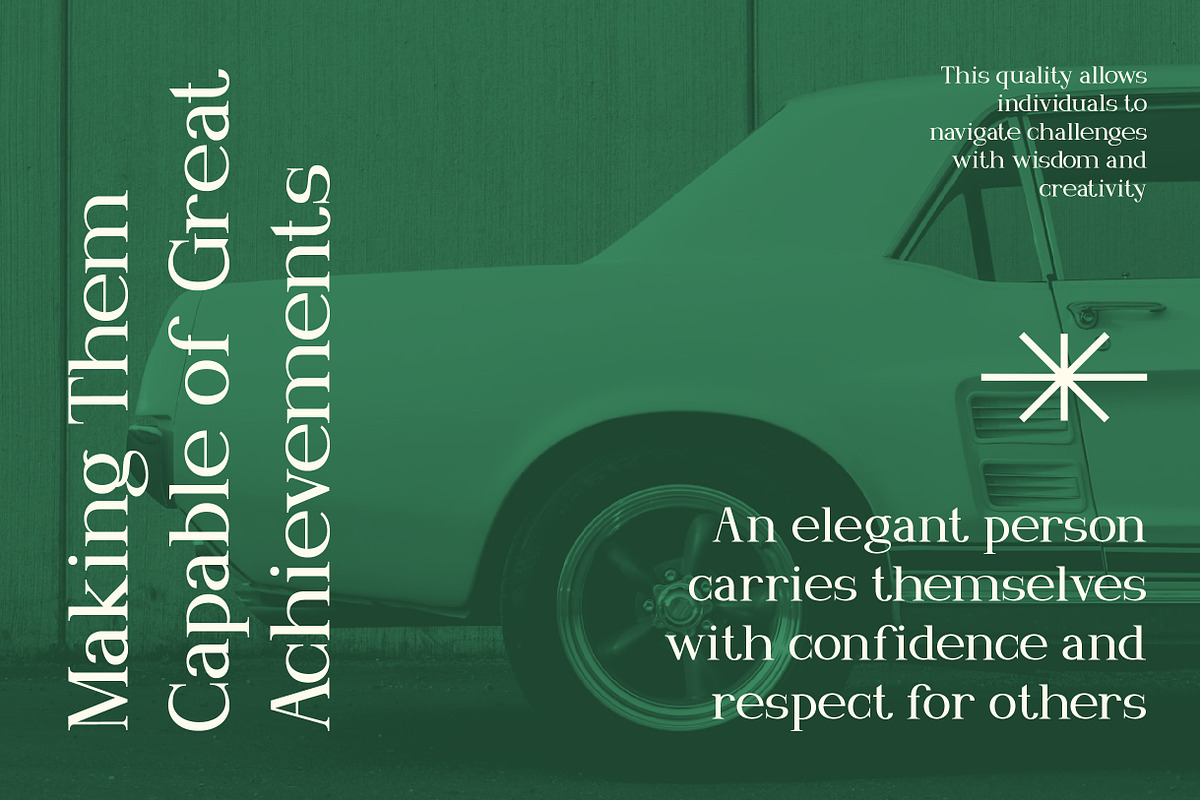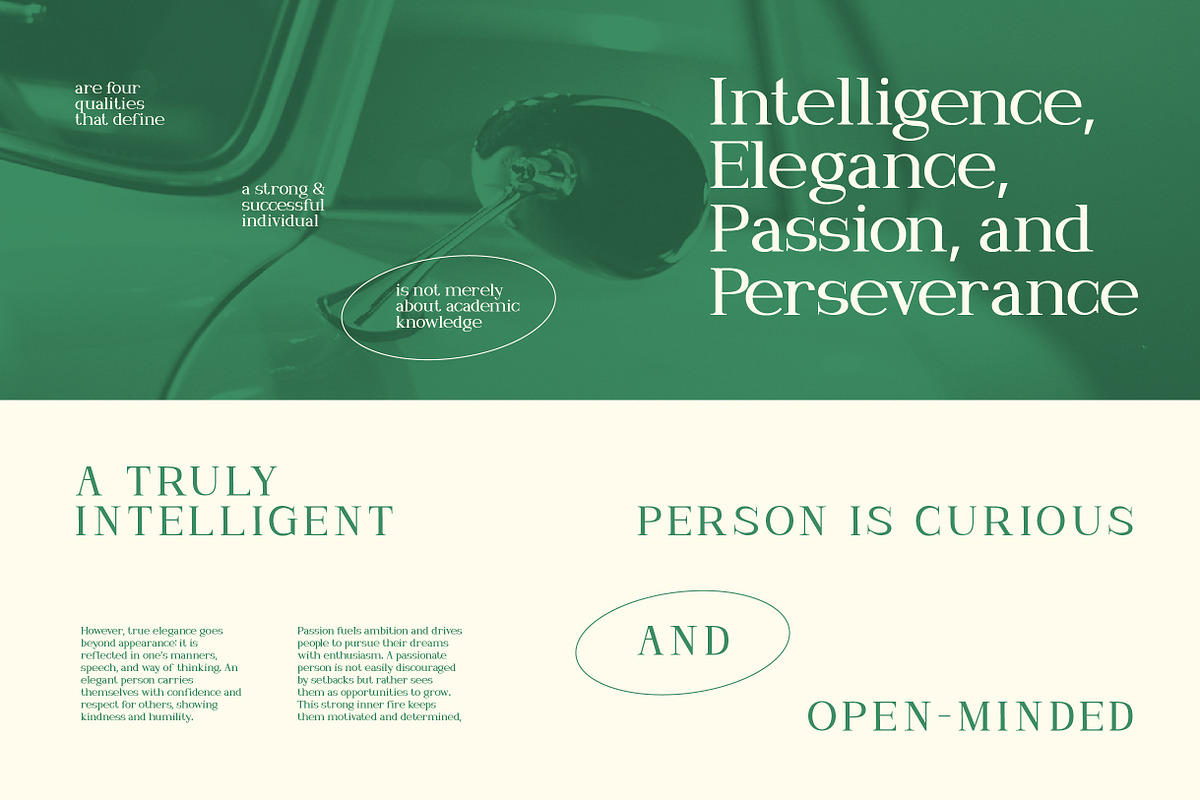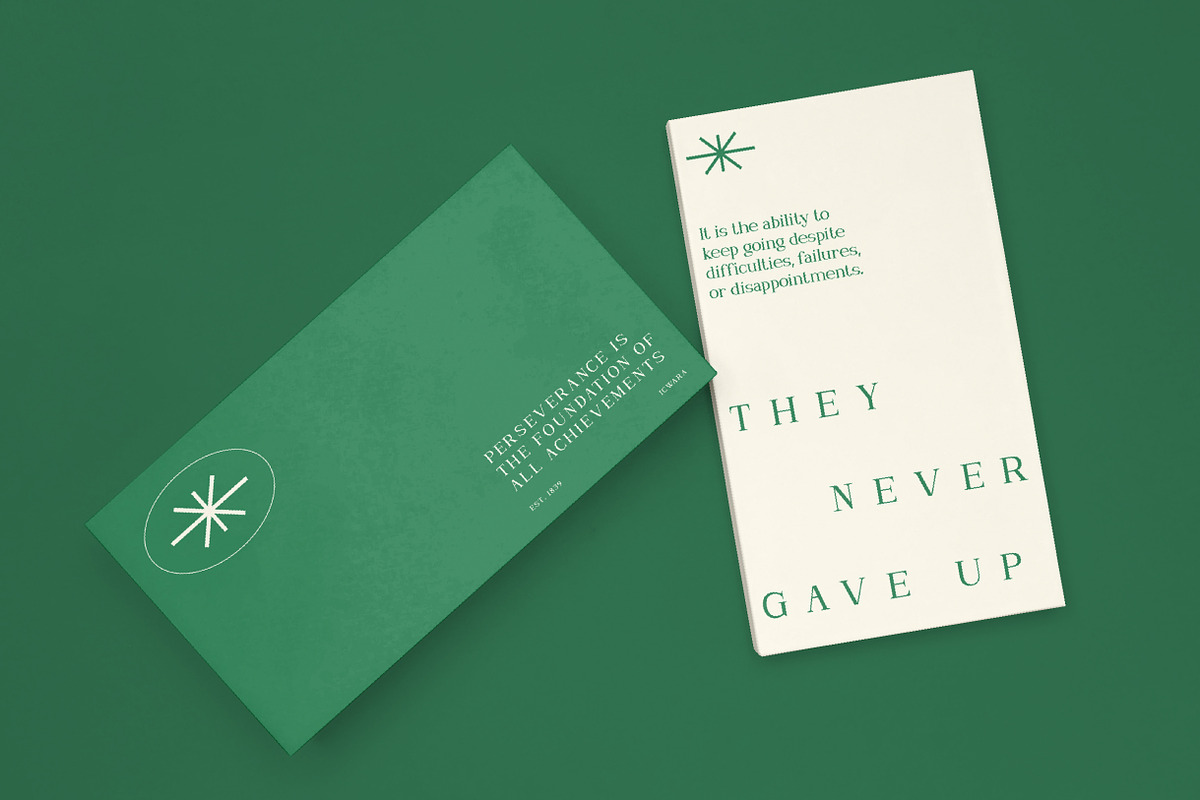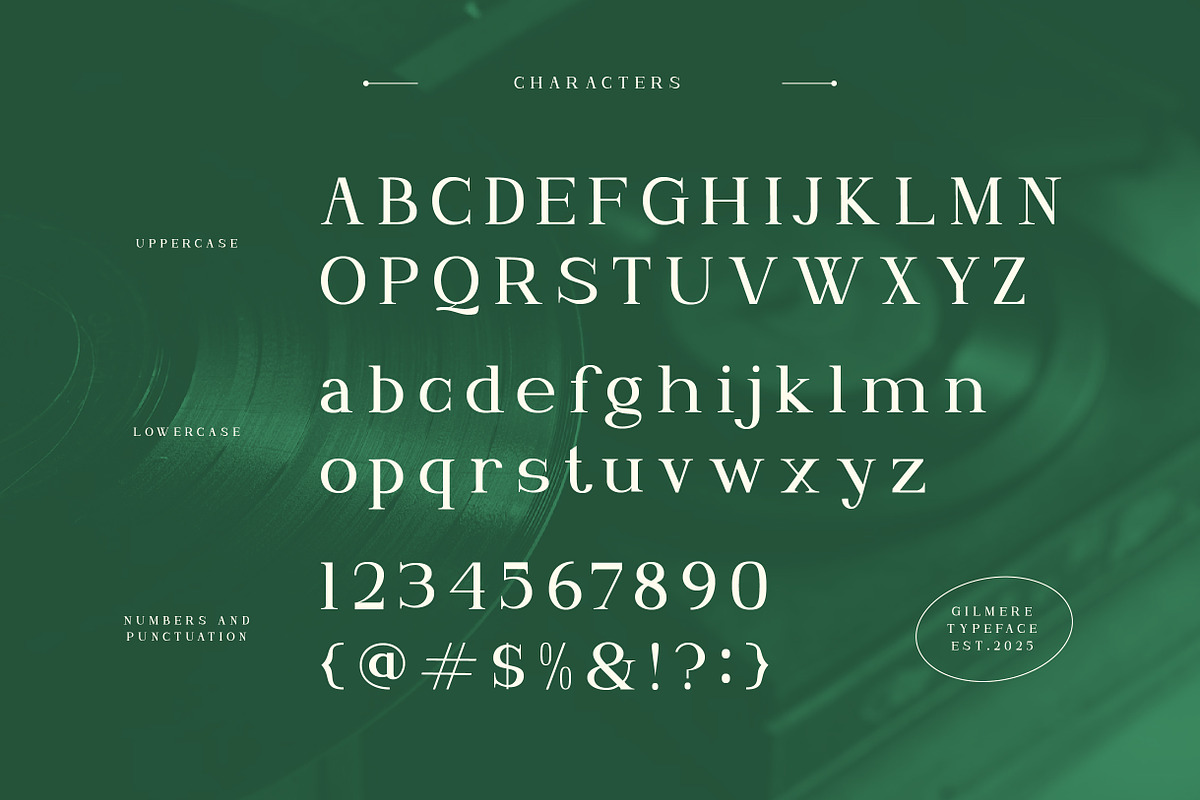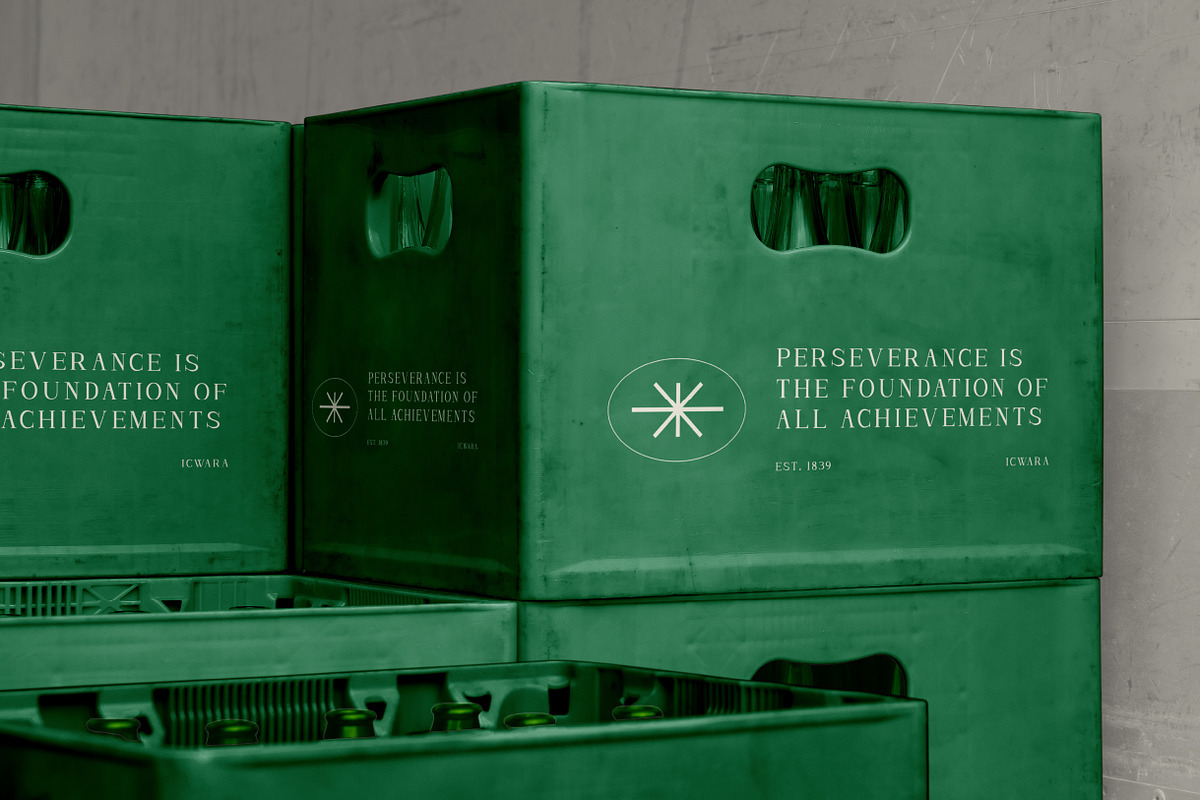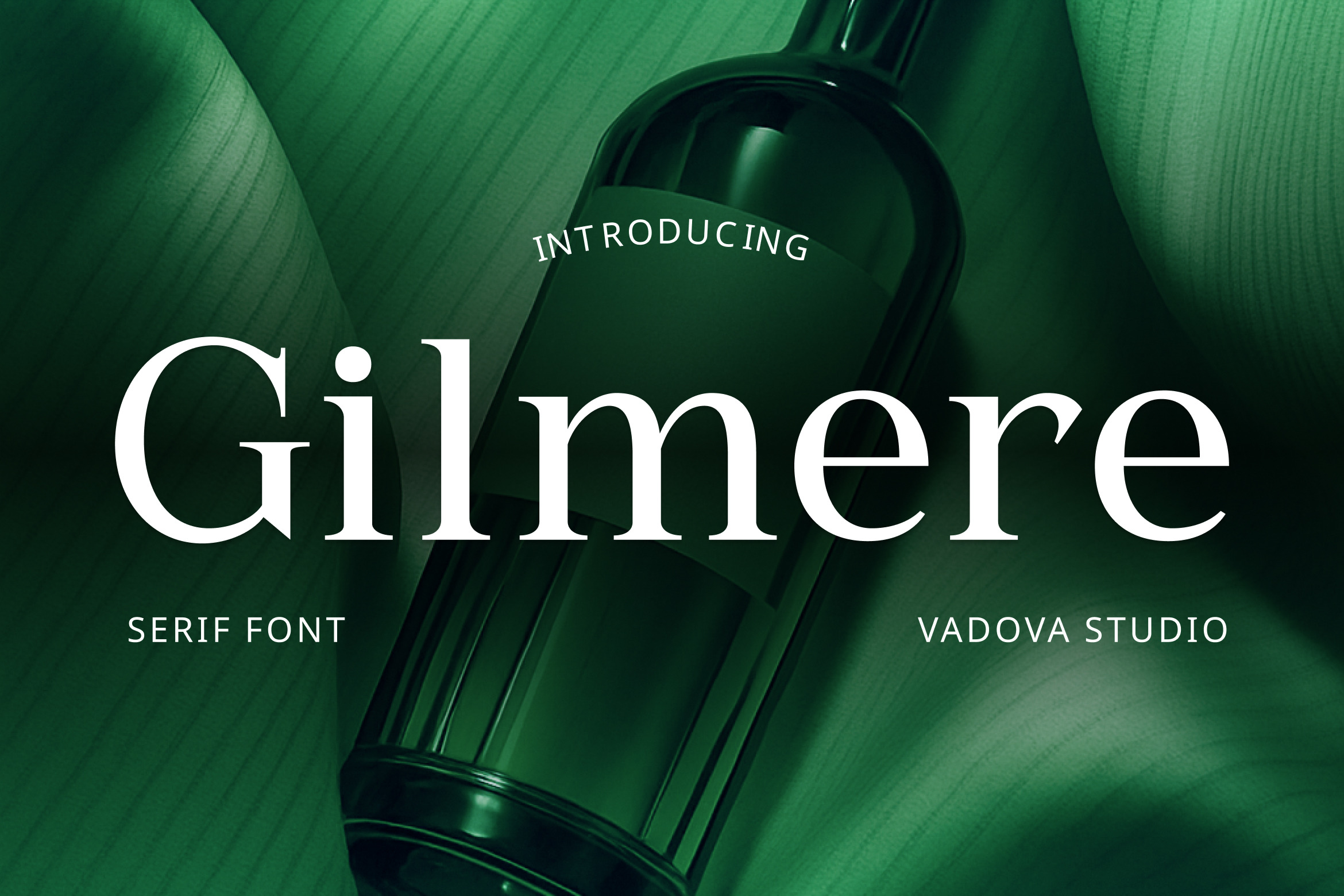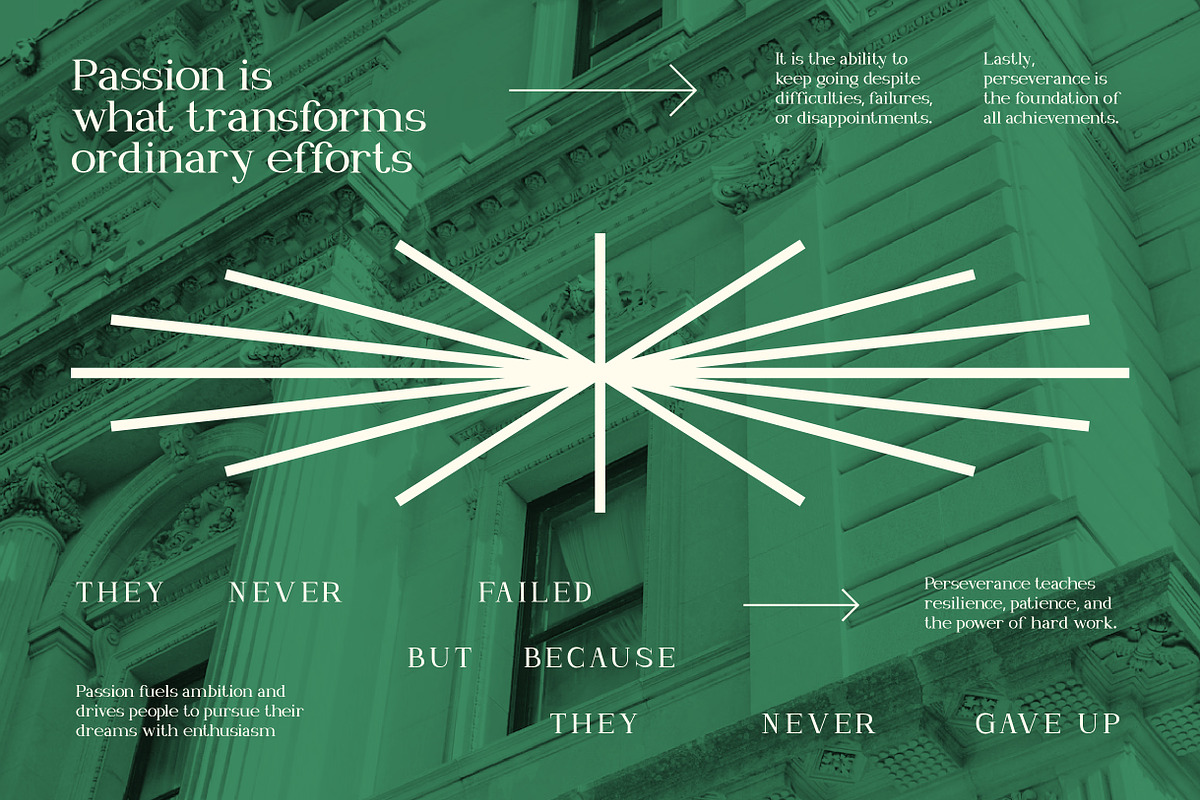
Gilmere – Elegant Serif Typeface
Gilmere is an elegant serif typeface that blends classic charm with modern sophistication. With its luxurious and timeless design, this font is perfect for high-end branding, packaging, editorial layouts, and upscale marketing materials. Its sharp serifs, smooth curves, and clean letterforms make it both stylish and highly legible. Gilmere exudes class and refinement, ideal for fashion, luxury products, high-profile event branding, and premium business identities.
This font's versatility ensures it shines across both print and digital platforms, effortlessly fitting in with minimalistic layouts or more intricate designs. Its sleek appearance adds a sophisticated touch while maintaining readability and visual appeal, making it the perfect choice for modern design projects.
Why Designers Love It:
Elegant and refined serif design.
Ideal for high-end branding and luxury marketing.
Timeless appeal that suits both modern and classic designs.
Clean, readable letterforms with distinctive sharp serifs.
Perfect for fashion brands, editorial projects, and luxury packaging.
Uppercase and Lowercase Letters
Multilingual Support (Accents, Special Characters)
Best Use Cases:
High-end branding & logos
Editorial & magazine layouts
Luxury product packaging
Wedding & event invitations
Professional business stationery
Fashion, beauty, and lifestyle marketing